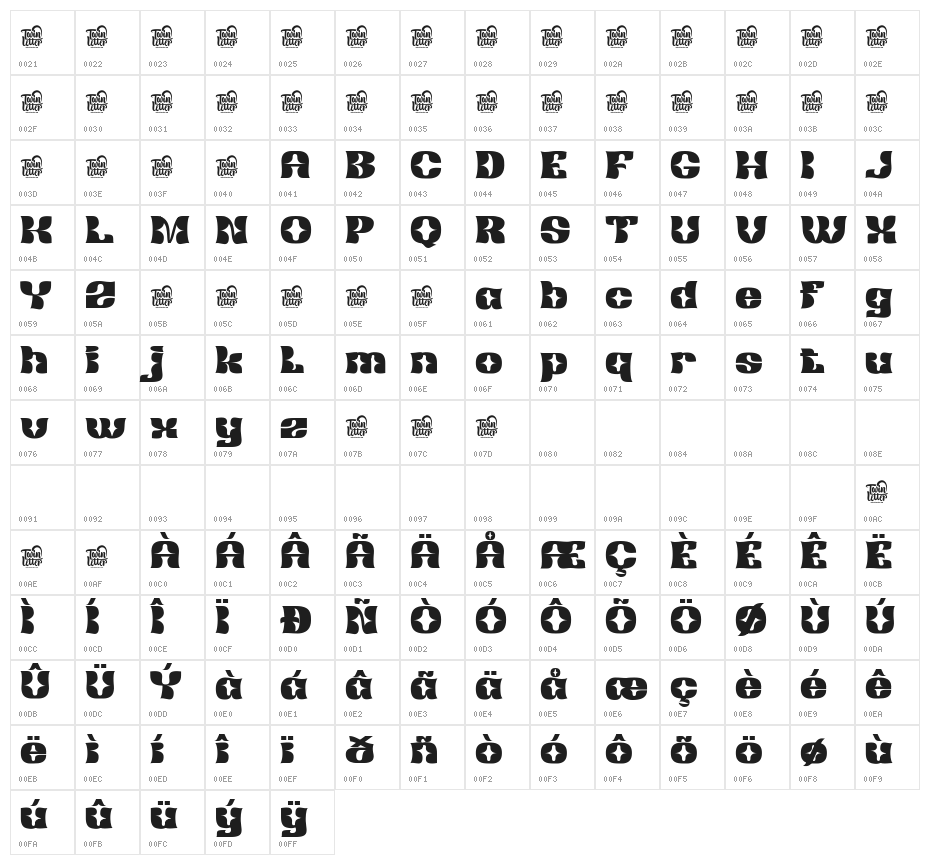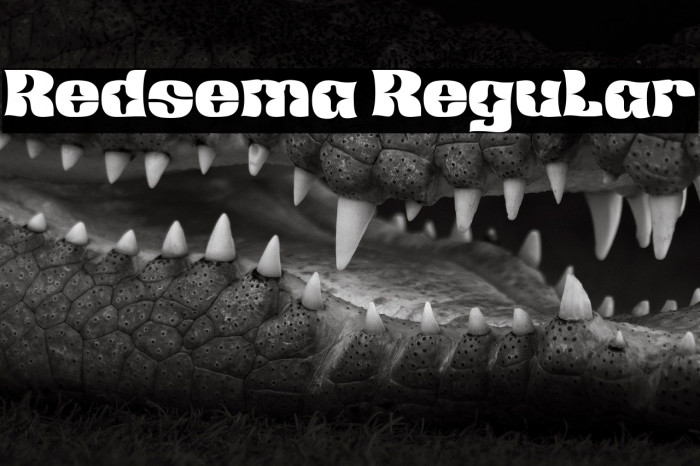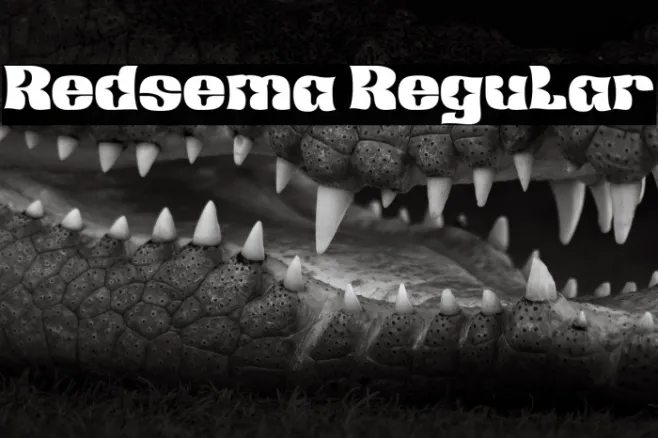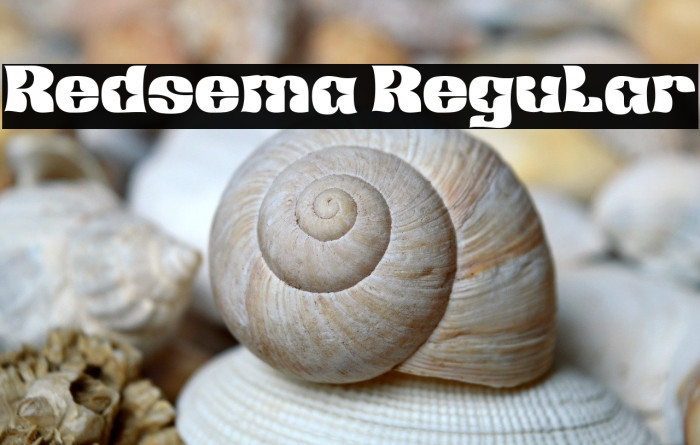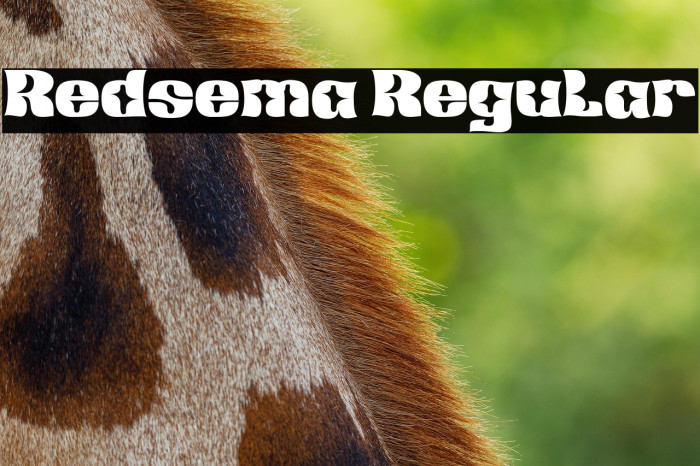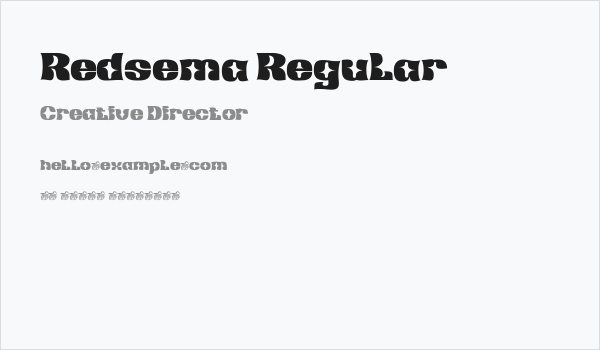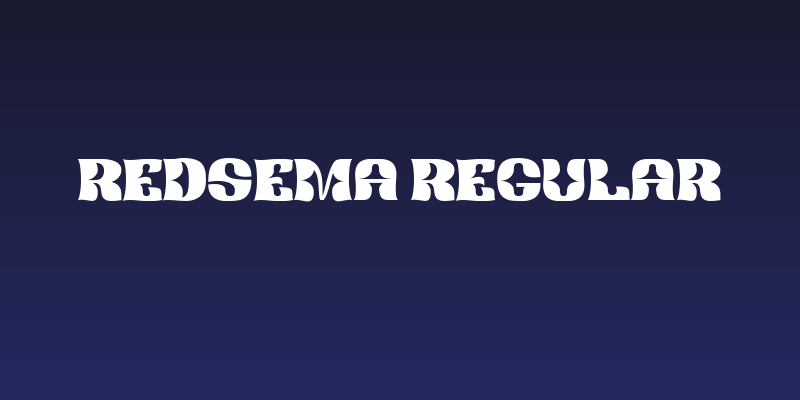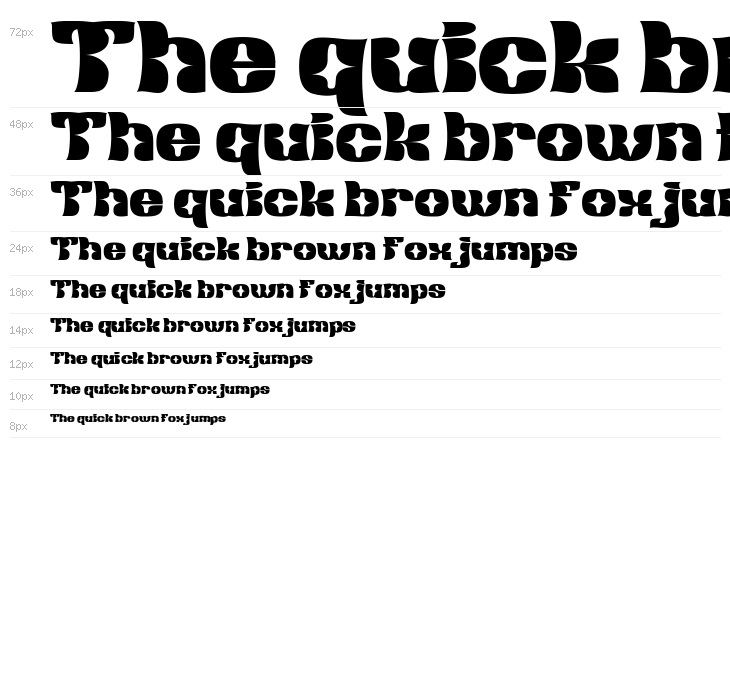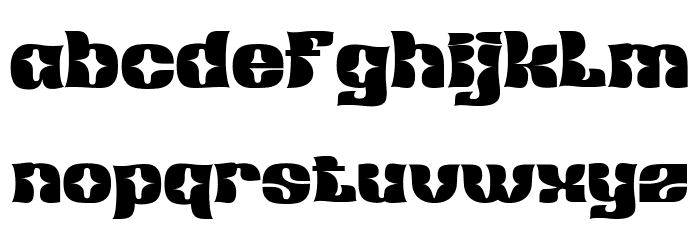
Redsema Regular Font
Redsema Regular Description
This font features a bold and striking design with a unique, decorative style. The characters are heavily stylized with thick, block-like forms and intricate cutouts, giving it a distinctive and artistic appearance. The uppercase and lowercase letters maintain a consistent theme, with each character exhibiting a playful yet robust form. The numbers and special characters are equally bold, ensuring a cohesive look across all text elements. This font's dramatic presence makes it ideal for attention-grabbing designs.
| Proposed Projects | Perfect for poster designs, branding projects, album covers, and any creative work that requires a bold statement. |